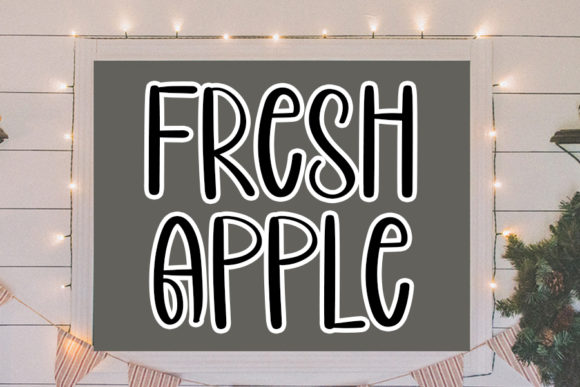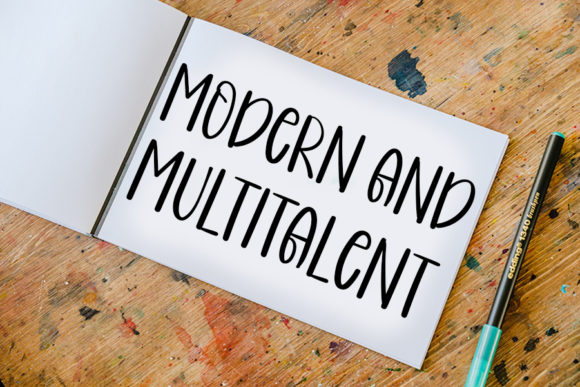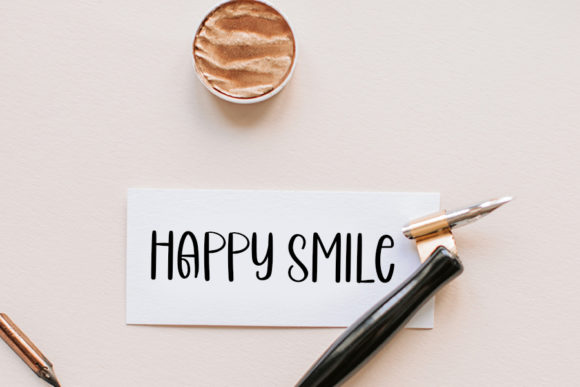
The Sweetness of Coconut Cake Font: A Designer’s Delight
I’ll never forget the time I was working on a project for a trendy bakery, and I just couldn’t find the perfect font to match their brand. The client wanted something sweet, simple, and elegant, but not too over-the-top. I scoured the internet, tried out dozens of fonts, and still, nothing seemed quite right. That was until I stumbled upon Coconut Cake Font. ✨
This beautiful, thin lettered handwritten font with sweet and simple swashes instantly won me over. Its versatility and charm have made it a staple in my design toolbox, and I’m excited to share its awesomeness with you!
- ✨ Sweet and Simple Swashes: The swashes in Coconut Cake Font are perfectly designed to add a touch of elegance to any design project.
- 🎨 Versatile: Coconut Cake Font can be used for various purposes such as logos, headings, t-shirts, letterhead, signage, labels, news, posters, badges, and more.
While Coconut Cake Font is an amazing font, there are a few things to keep in mind: ⚠️
- 🤔 Limited Use in Small Sizes: As with many script fonts, Coconut Cake Font may not be the best choice for very small text sizes, as some details may get lost.
The Story Behind Coconut Cake Font
Coconut Cake Font was designed with the intention of creating a beautiful, elegant script font that’s perfect for a variety of design projects. The designer wanted to create a font that’s both sweet and simple, with a touch of whimsy. And, just like a delicious coconut cake, Coconut Cake Font is sure to satisfy your design cravings!
Q: Is Coconut Cake Font suitable for body text?
A: While Coconut Cake Font is beautiful, it’s best suited for headings, titles, and short paragraphs. For longer body text, a more traditional font might be more suitable.